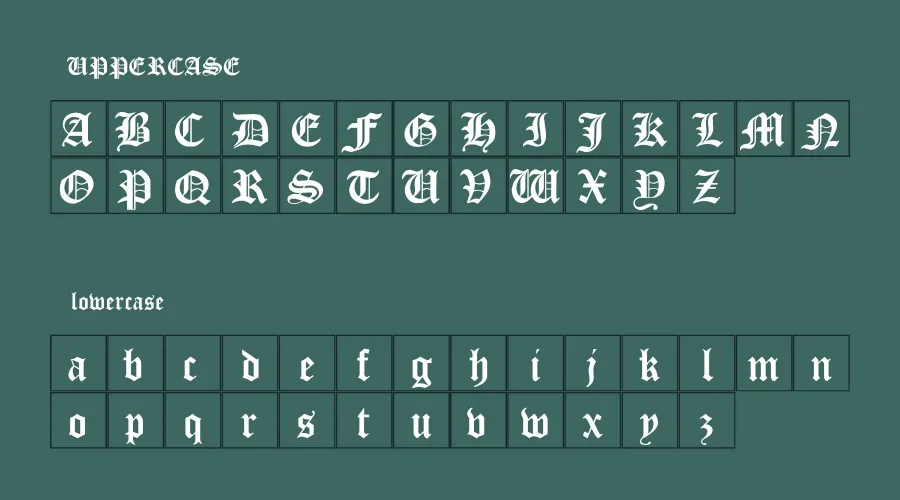
Cloister Black Font
About Cloister Black Font
The Cloister Black Font is a gothic texture that was designed by Dieter Steffmann and released in 2001. This font is available in both OpenType and Truetype and contains cyclic, Latin, and greek structures of sets.
It has unique projects, that are perfect for both quiz and display use. You can utilize this font with highway gothic font and make modern projects. It includes multiple types of glyphs and characters such as small letters, capital letters, numerals, symbols, and many more
In addition, the high contrast of the structures may create this style difficult to read in small shapes. You may download it free from here for all your personal or commercial methods.
This contemporary typeface can be used for making logo designs, posters, advertisements, social media posts, and t-shirt designs. This vintage font is the perfect choice for book covers, printings, party stages, and stage designs.
It may also be utilized for wedding-related headings or T-shirt designs, titles, CSS site designs, and jacket designs. Cloister Black has a variety of functions, and many developers utilize these features in various kinds of tasks, and methods.
Furthermore, you may also utilize this font for making wedding cards, invitation cards, birthday cards, office cards, business cards, and many other procedures. This font is also commonly utilized in branding and advertising. Overall, it is a good choice for developers who are looking for an adaptable and stylish font.
The Cloister Black Font belongs to the gothic texture family and has stylish and modern shapes of elements. It contains cyclic, Latin, and greek structures of sets.
This attractive typeface was designed by Dieter Steffmann and published in 2001. This font is available in both OpenType and Truetype.